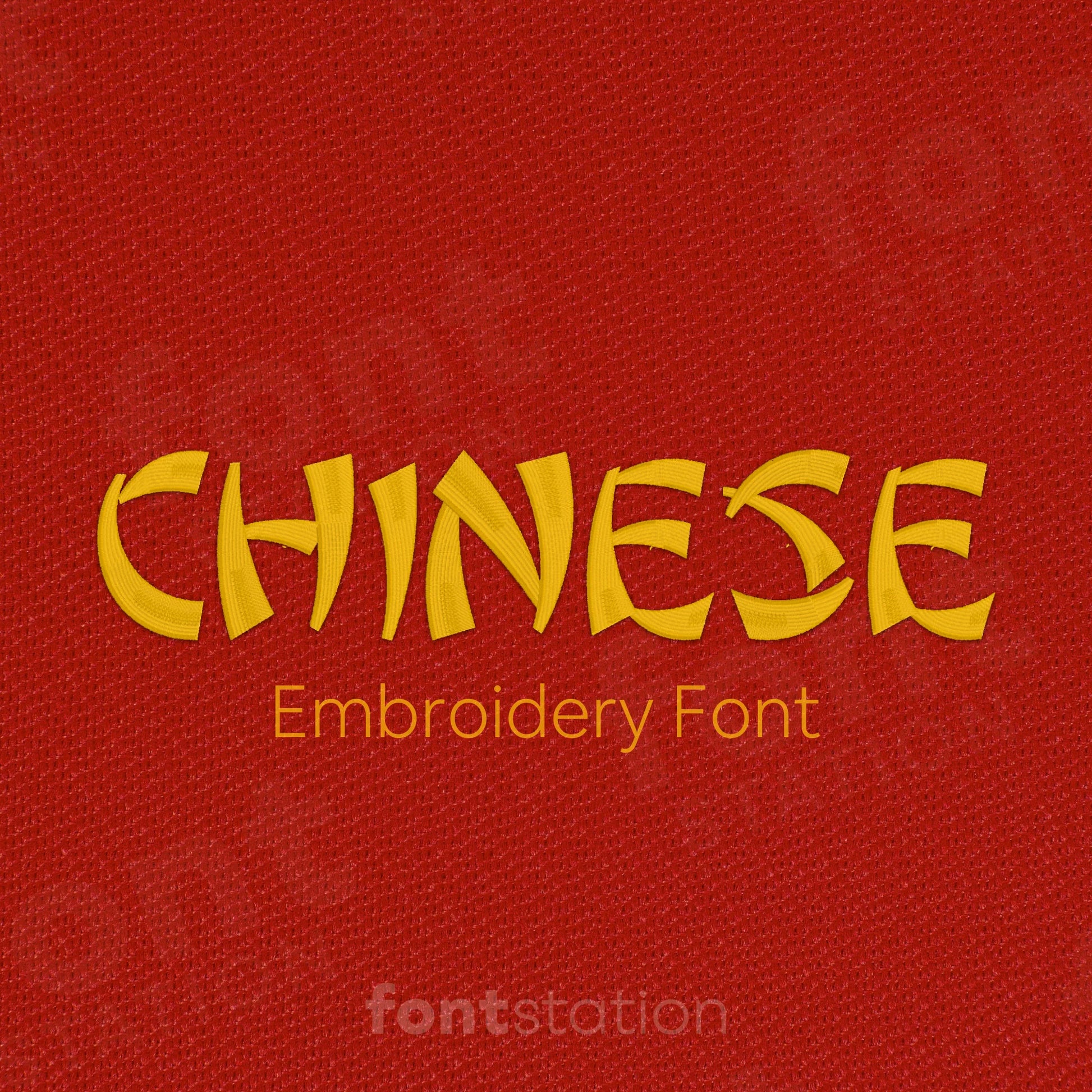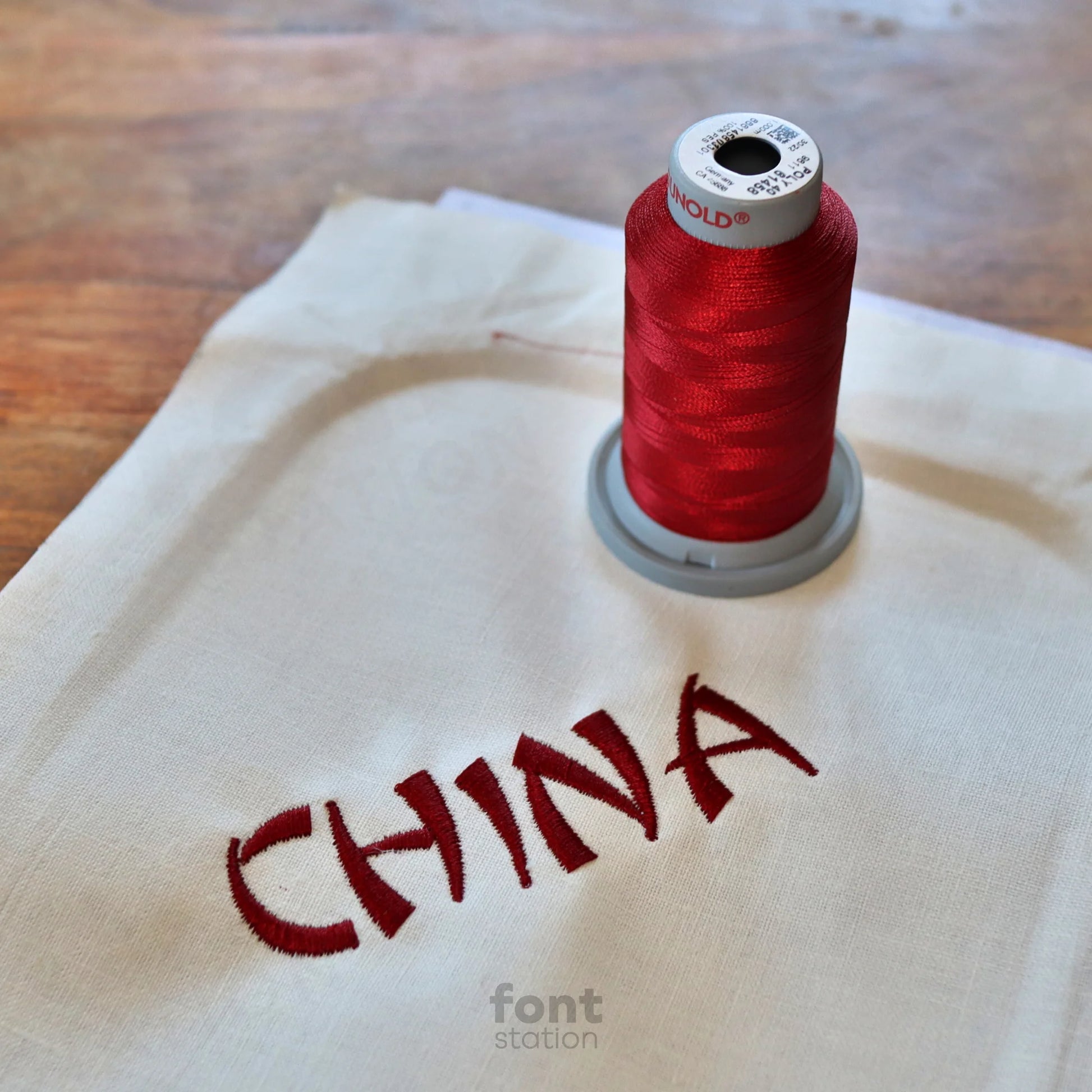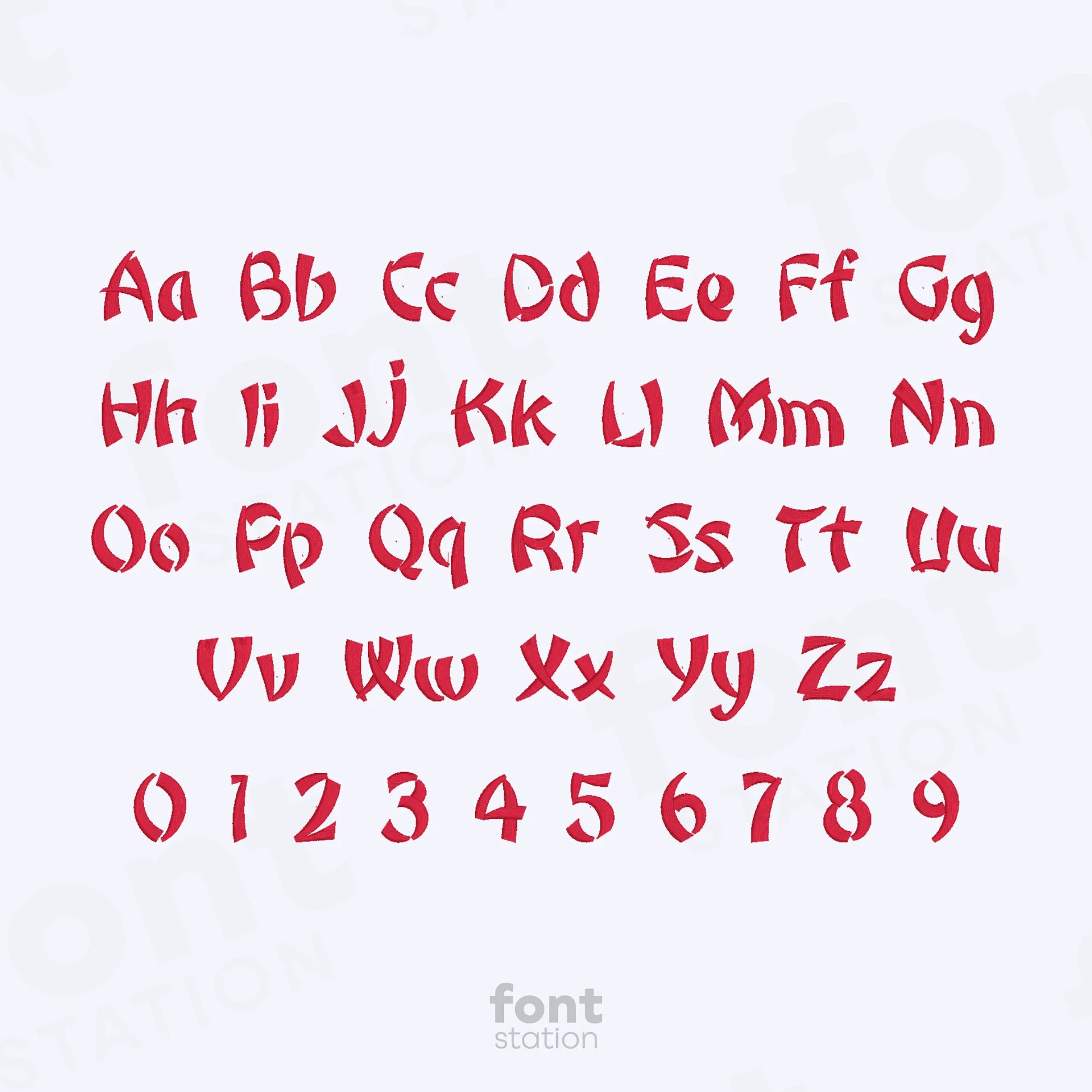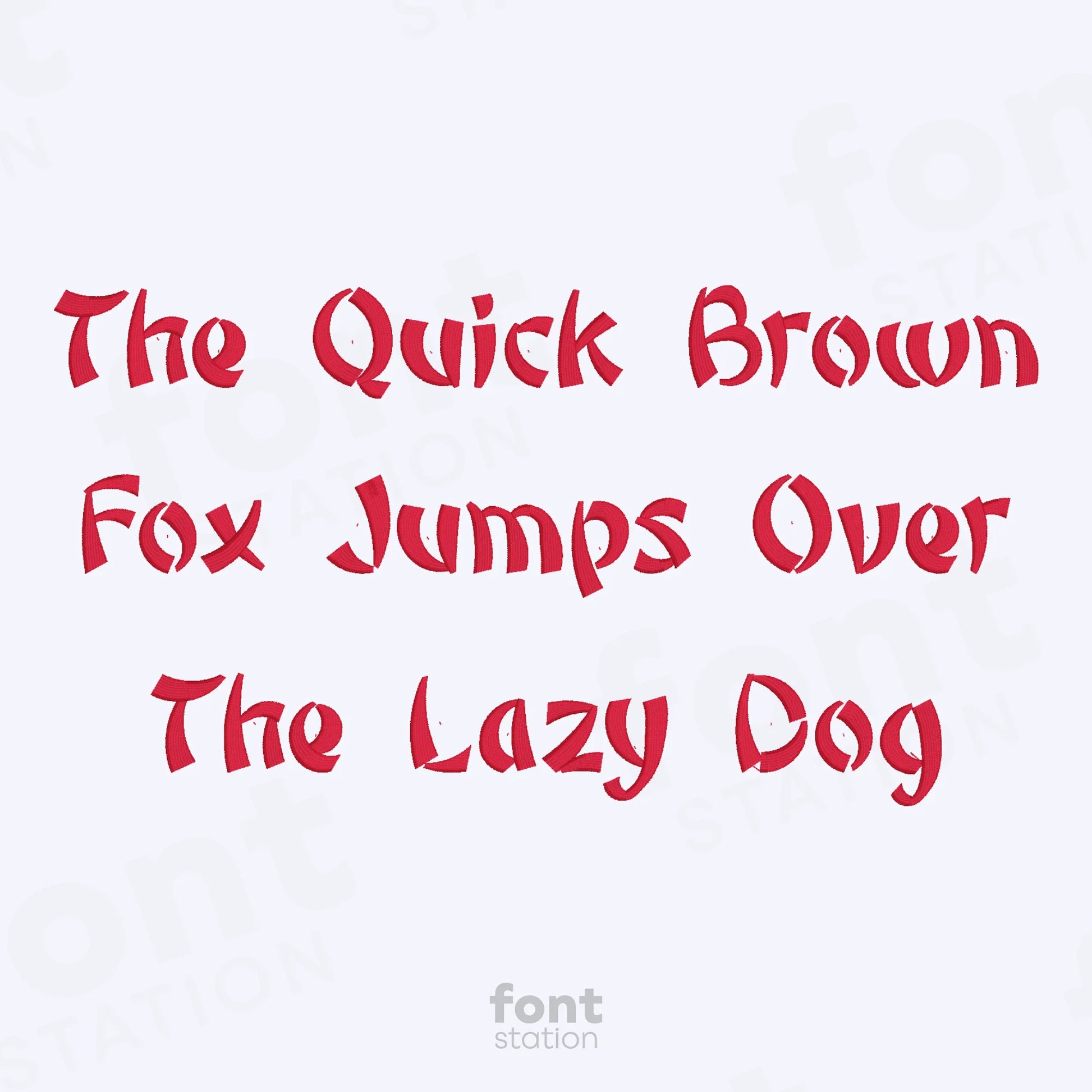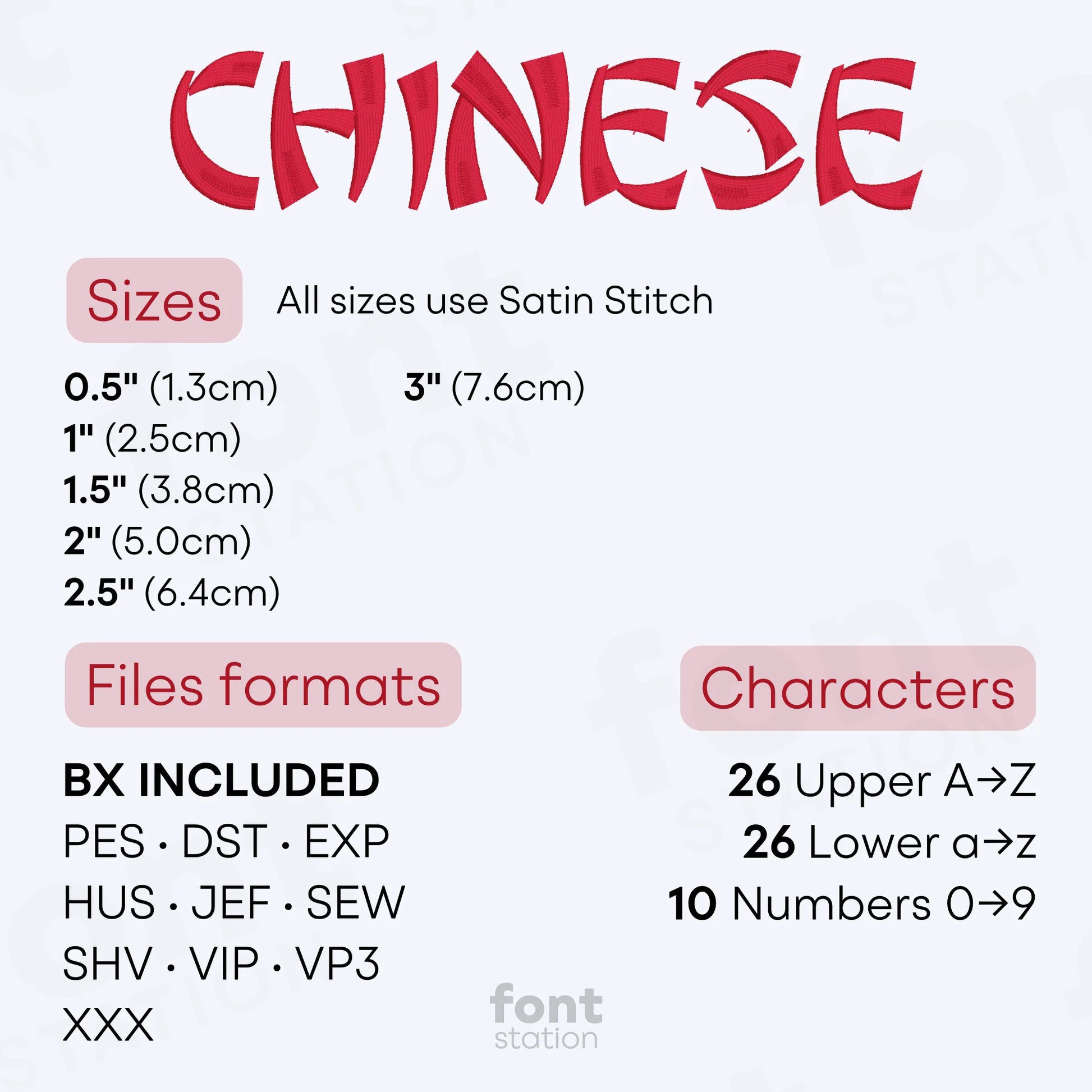
Chinese Embroidery Font
Introducing our Chinese embroidery font, a traditional, Asian-style alphabet perfect for elegant embroidery designs. These classic letters stitch beautifully on any embroidery machine, making it a refined choice for your next creative project.
About the Chinese Embroidery Font
Our Chinese embroidery font brings traditional Asian flair to your machine embroidery projects.
The Chinese embroidery font features a stylized alphabet inspired by classic Asian and Oriental letterforms, perfect for cultural designs, personalized gifts, or themed decor. These elegant embroidery letters stitch beautifully on any embroidery machine, offering smooth results on all fabric types. Available in BX, PES, DST, JEF, EXP, VP3, and HUS formats, this font adds a touch of tradition and artistic charm to every project.